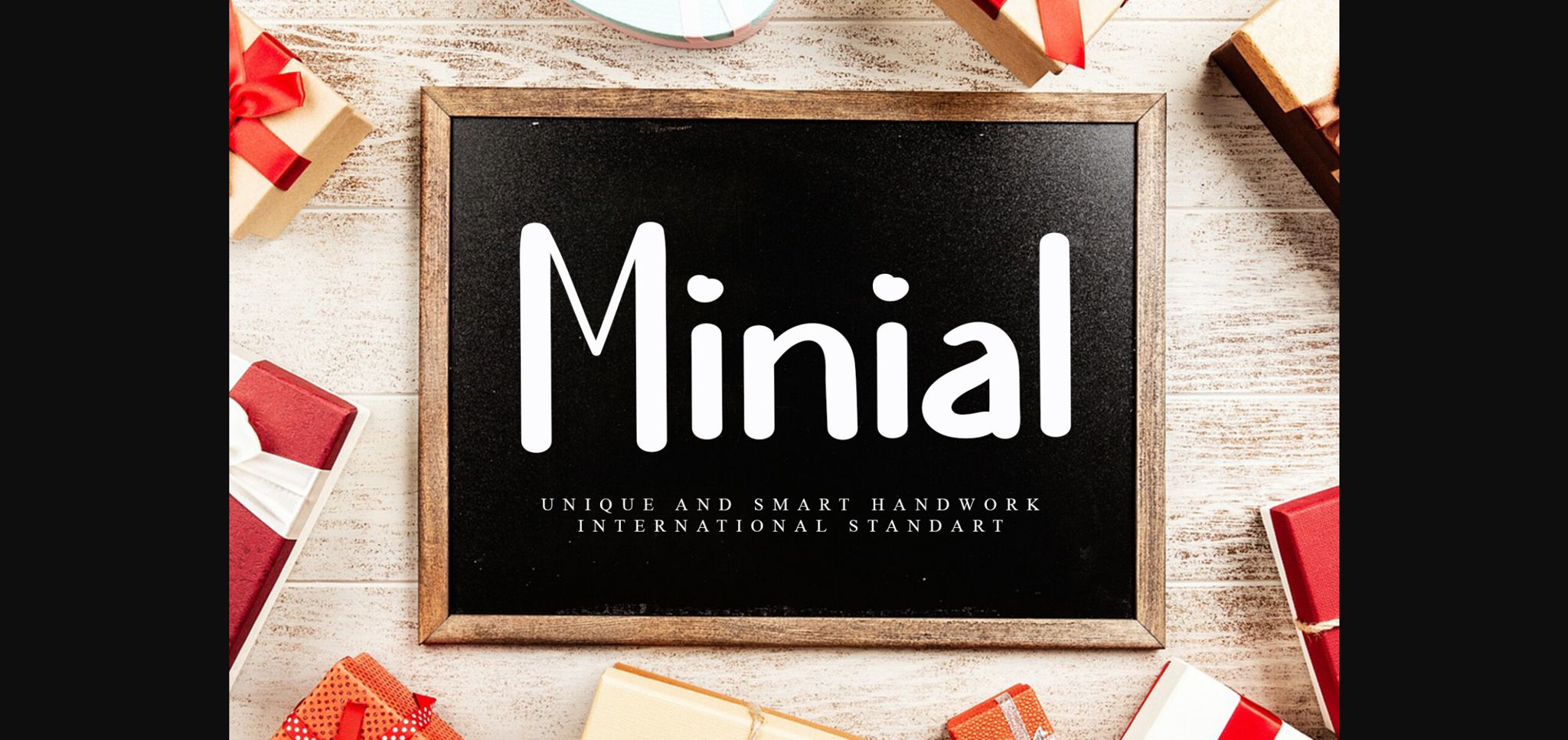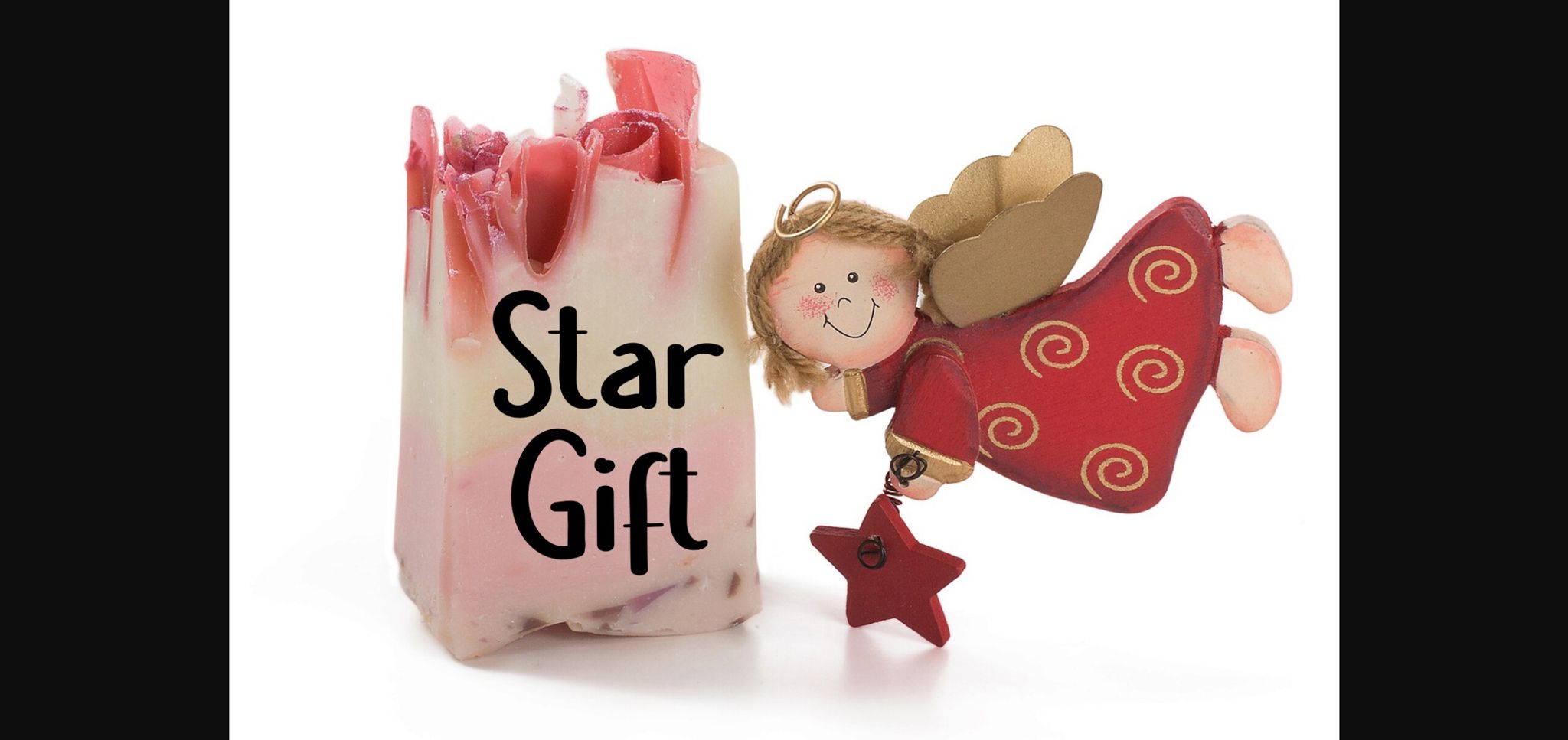
About Minial Font
Minial is a unique and elegant font. Looks great on wedding invitations, greeting cards, billboards, logos, business cards, and any other design that requires a handwritten touch. This font features a varied baseline, created with a natural, hand-made touch.